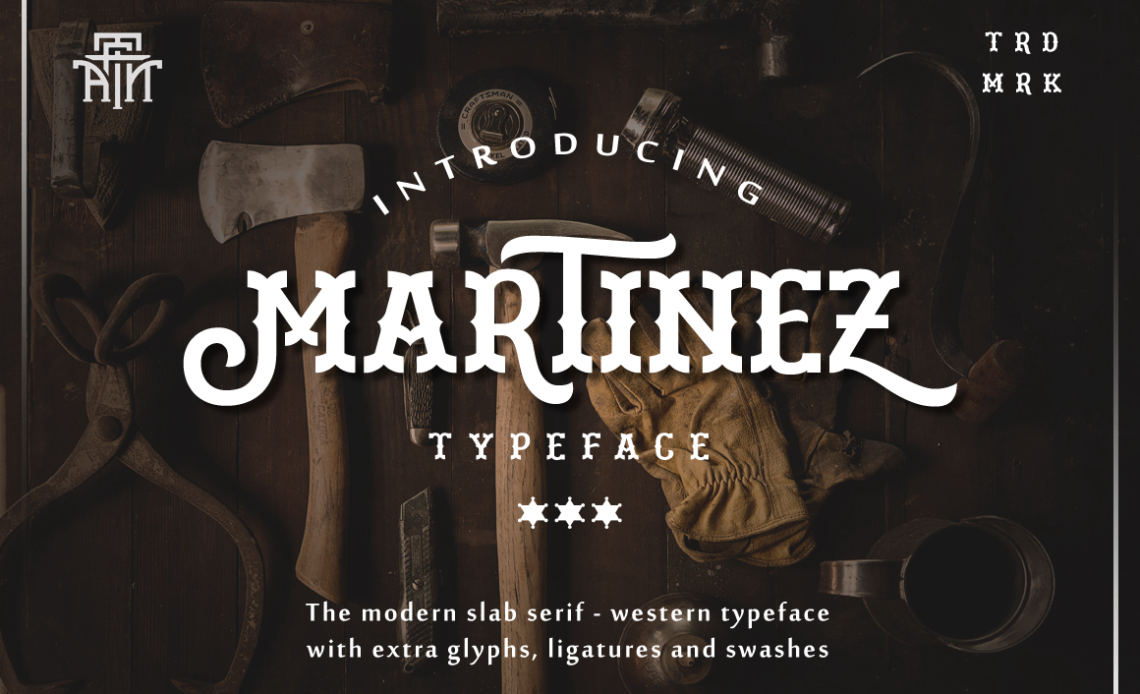
Step into the world of visual artistry and storytelling with Martinez Typeface, a modern slab serif font family that captures the essence of vintage references like cowboys, lumberjacks, and handcrafted artistry, right at your fingertips. Immerse yourself in a world of creativity as you craft captivating headlines, compelling sub-headlines, and engaging body text that leaves a lasting impression on your audience.
With its Normal and Shadow styles, Martinez Typeface offers you the flexibility to create a diverse range of looks and feels. Experience the elegance of the Normal style for a classic and timeless aesthetic, or embrace the boldness of the Shadow style to add depth and intrigue to your designs.
Martinez Typeface is more than just a font; it's an invitation to explore the depths of your imagination. Let your creativity run wild as you design logos that exude a rustic charm, posters that evoke a sense of adventure, and branding materials that capture the spirit of the Wild West. The possibilities are endless with Martinez Typeface as your creative companion.